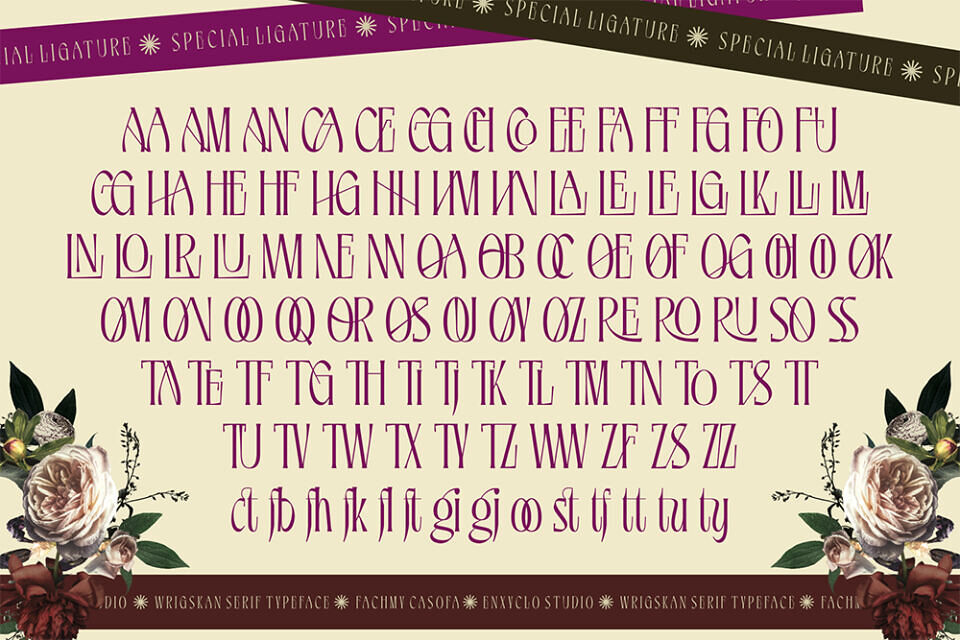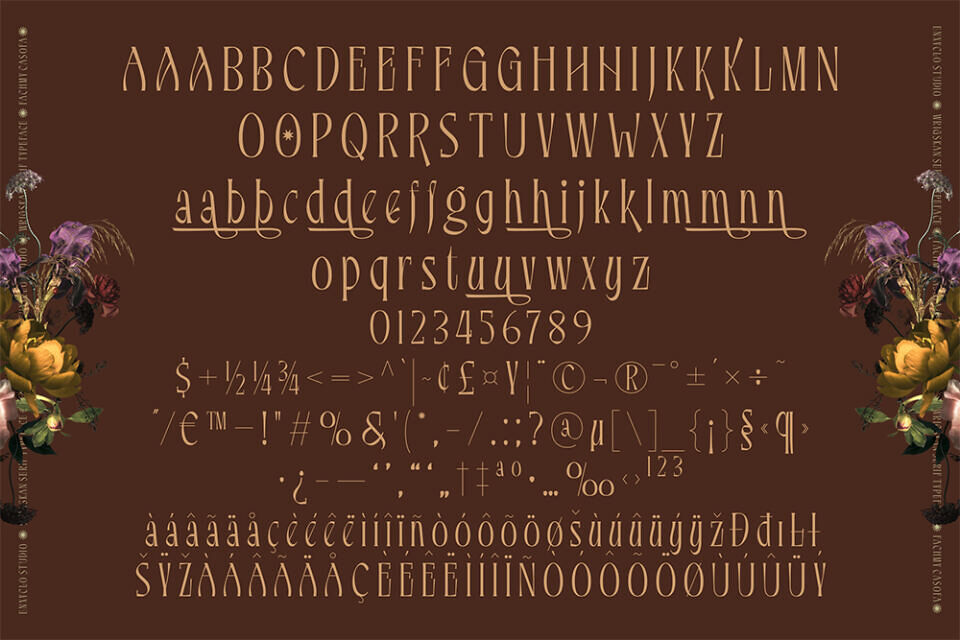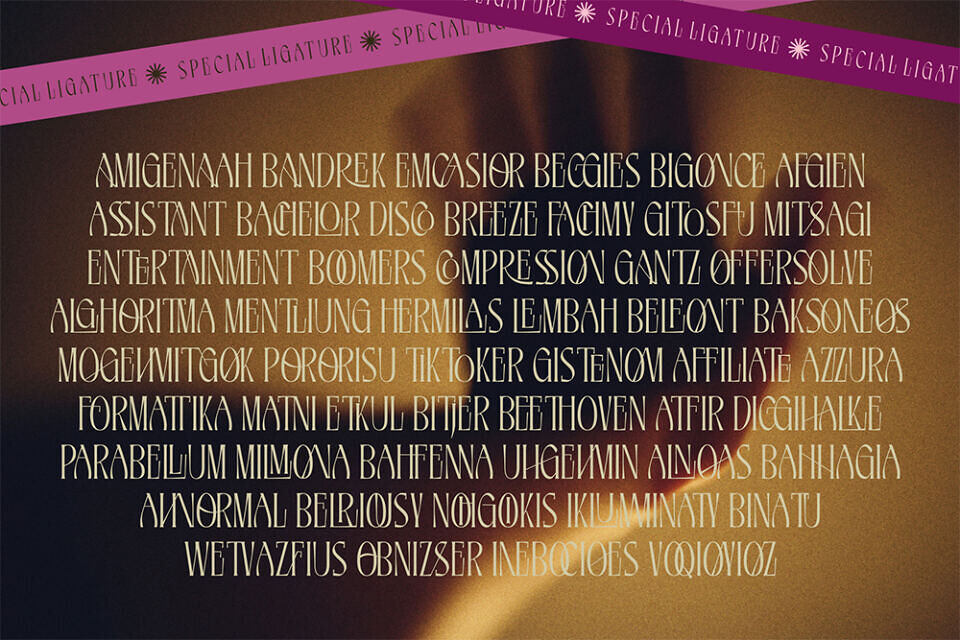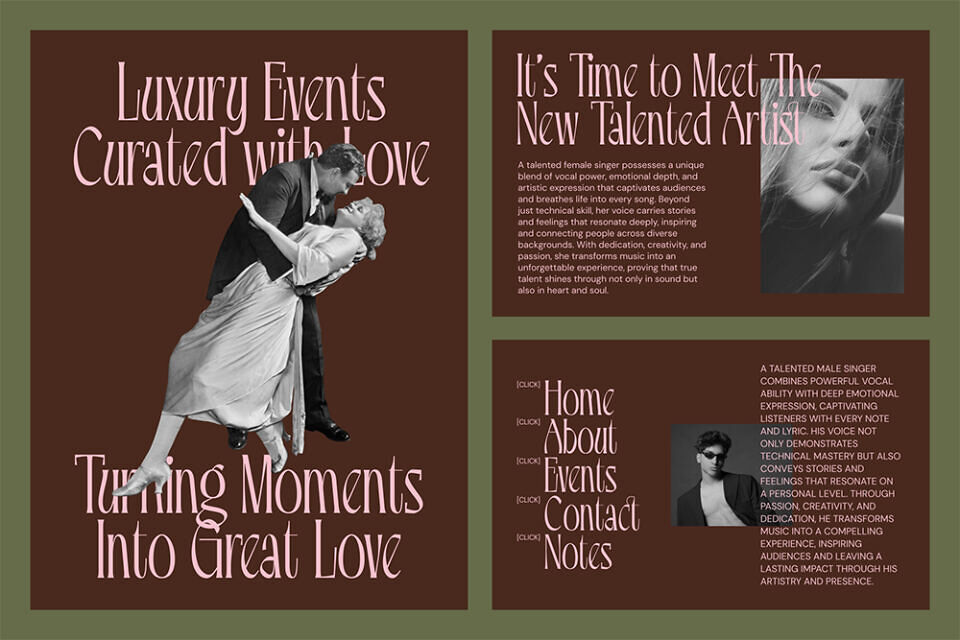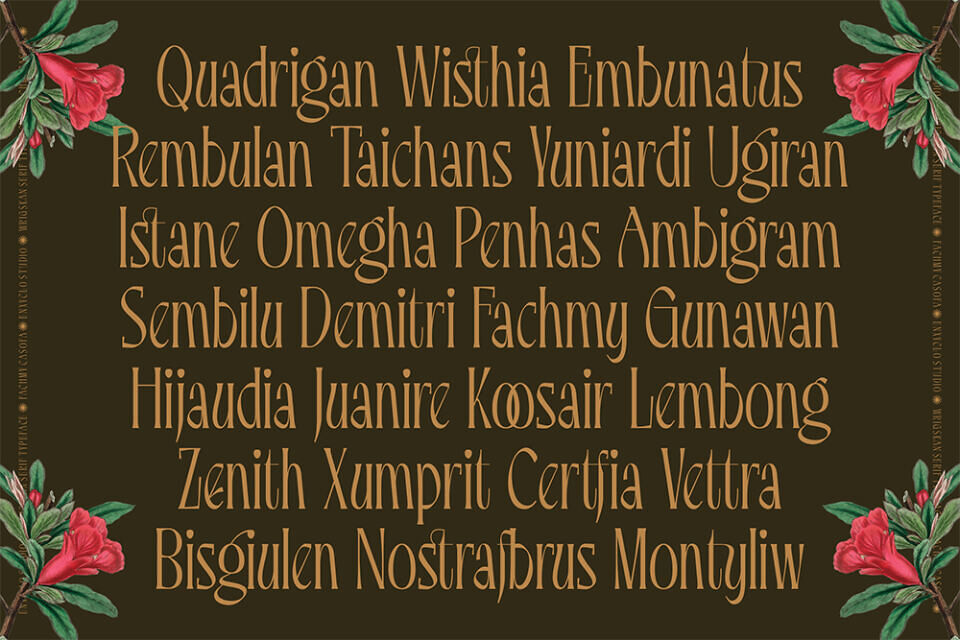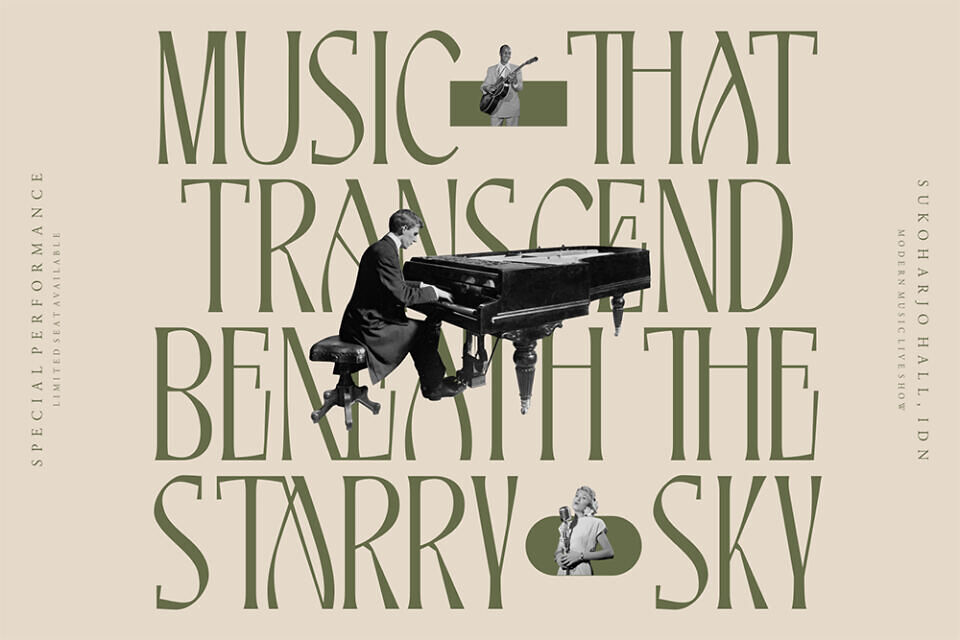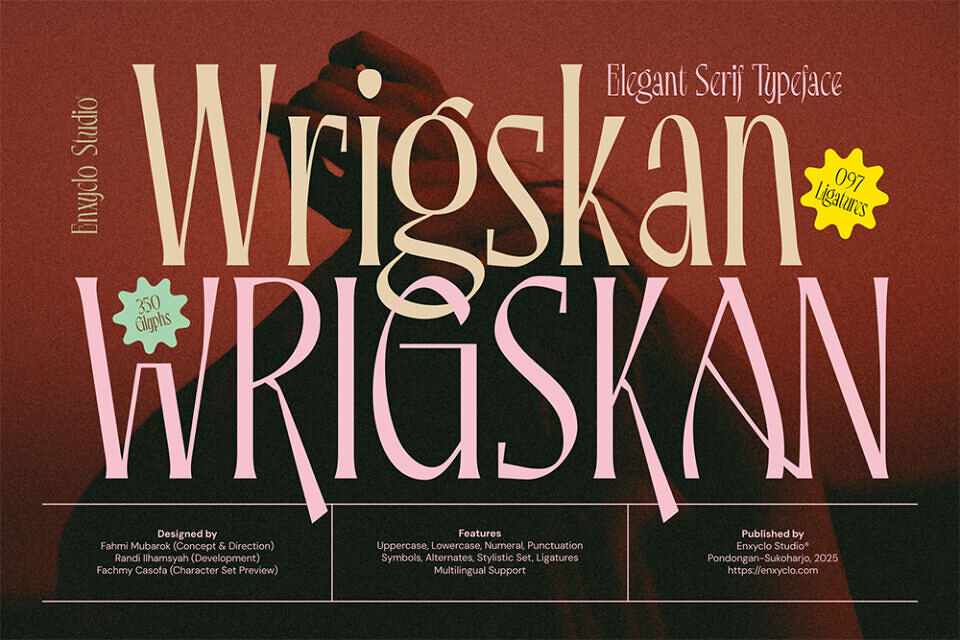
Wrigskan Font
Introducing Wrigskan, an elegant serif typeface designed to elevate your brand with a lavish and sophisticated touch. This modern and luxurious font perfectly captures the essence of fashion, beauty, and premium aesthetics, making it an outstanding choice for creating bold, rich logos and branding materials. Whether you’re crafting a high-end cosmetic line or a chic boutique identity, Wrigskan’s clean yet fancy style brings a prestigious and glamorous feel to any project.
Made for fashion-forward designers and brands seeking to convey elegance and luxury, Wrigskan seamlessly blends classic serif elements with modern, stylistic features. Its extensive set of ligatures and glyphs enhances versatility, allowing you to produce exquisite typography that stands out in the crowded marketplace. Embrace sophistication with Wrigskan, the font that defines lavish elegance for your logo, brand, skincare packaging, and more.